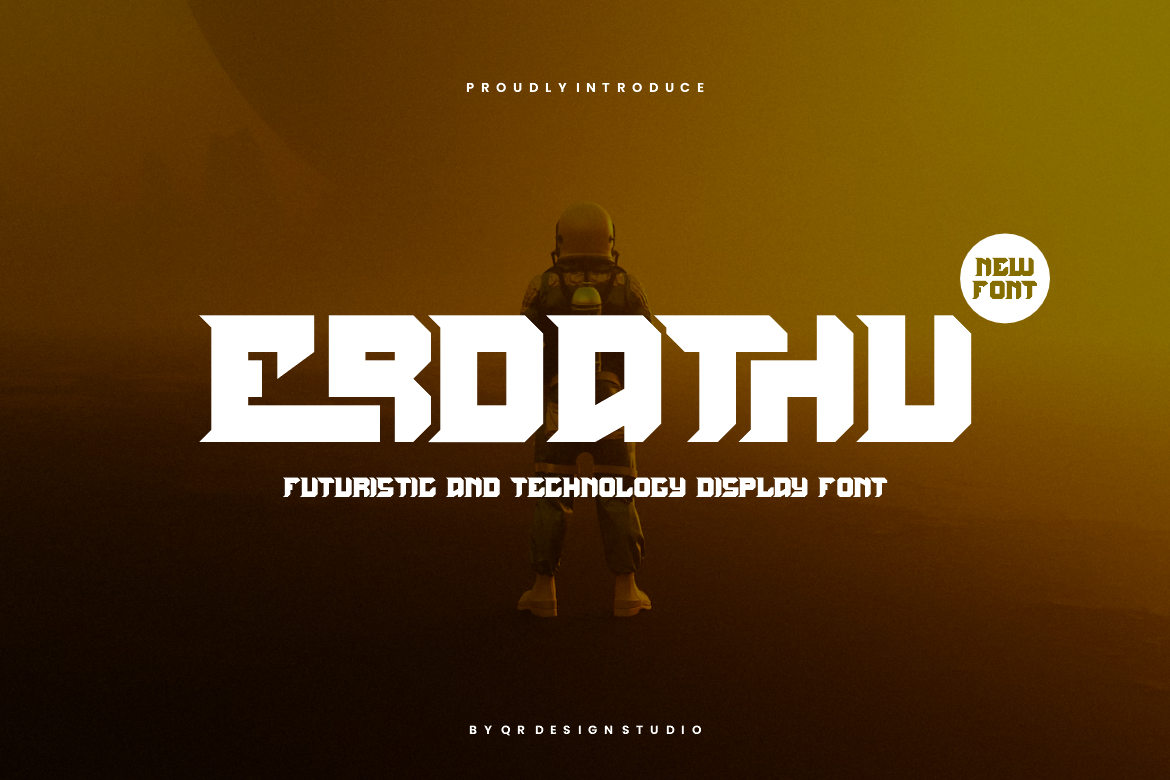
Erdathu - Futuristic & Tech Font
Erdathu Font is a tech and authentic display font. The font is suitable for any branding project like poster, logo, sport, and many more. Outstanding in a wide range of contexts.